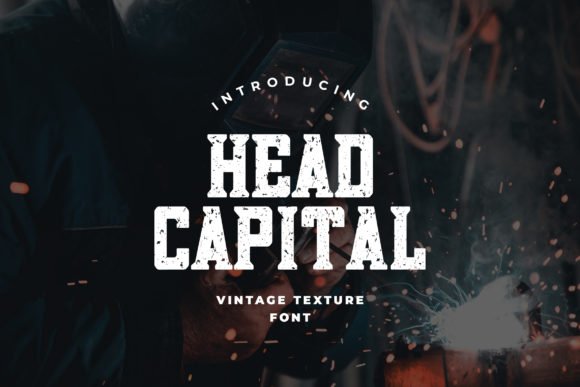
Discover the Power of Head Capital Font
Have you ever stared at a blank canvas, waiting for the perfect idea to strike? For many creatives, it’s that one spark that sets the entire project ablaze. For me, it was a late-night brainstorming session where the Head Capital Font suddenly popped into my mind. Its bold, classic slab serif style was the missing piece I needed to elevate my design to the next level.
Head Capital Font is more than just a typography choice – it’s a statement piece that adds depth and sophistication to any project. Its versatility makes it a valuable asset for designers looking to create a lasting impression. Whether you’re crafting a logo, designing a website, or working on a print campaign, Head Capital Font is sure to bring your ideas to life in a way that’s both timeless and trendy.
Key Features of Head Capital Font
- Unique Characteristics: Features a unique blend of modern and classic elements, making it suitable for a wide range of design projects, from corporate identities to digital interfaces.
Head Capital Font Review
Overall, I’m impressed with the Head Capital Font, but it’s not without its flaws. Here’s my honest take.
- Modern aesthetic: The font has a sleek, contemporary feel that would work well for modern brands and websites.
- Legibility: Despite its bold appearance, the font is surprisingly easy to read, even at smaller sizes.
- Flexibility: Head Capital Font comes in a range of weights and styles, making it versatile for various design applications.
- Limited expressiveness: The font’s modern style can feel a bit cold and unemotional, which may not be suitable for all design projects.
- Not ideal for body text: While the font is legible, it’s still a display font and may not be the best choice for large blocks of body text.
- Lack of personality: Some users may find the font too generic and lacking in character.
In conclusion, Head Capital Font is a solid choice for designers looking for a modern, versatile font. However, it may not be the best fit for every project, and its limitations should be carefully considered.
Tips for Getting the Most Out of Head Capital Font
Use Head Capital Font for headings and titles to create a clear visual hierarchy in your designs. Pair it with a clean and simple font for body text to create a balanced and professional look. Experiment with different font sizes and colors to emphasize key points and create visual interest.
Head Capital Font is ideal for:
- Business presentations and reports
- Editorial and publishing projects
Alternatives to Head Capital Font
Montserrat is a popular sans-serif font designed by Julieta Ulanovsky. It’s a great choice for modern designs and can be used for both body and heading text. Montserrat is more geometric and has a clean feel, making it perfect for digital products and websites. Compared to Head Capital Font, Montserrat has a more minimalist look and feel, but it lacks the elegant touch of Head Capital Font.
Open Sans is another popular sans-serif font designed by Steve Matteson. It’s a clean and modern font that works well for body text, but it can also be used for headings. Open Sans is highly legible and has a friendly feel, making it perfect for websites, apps, and digital products. Compared to Head Capital Font, Open Sans is more straightforward and lacks the sophistication of Head Capital Font.